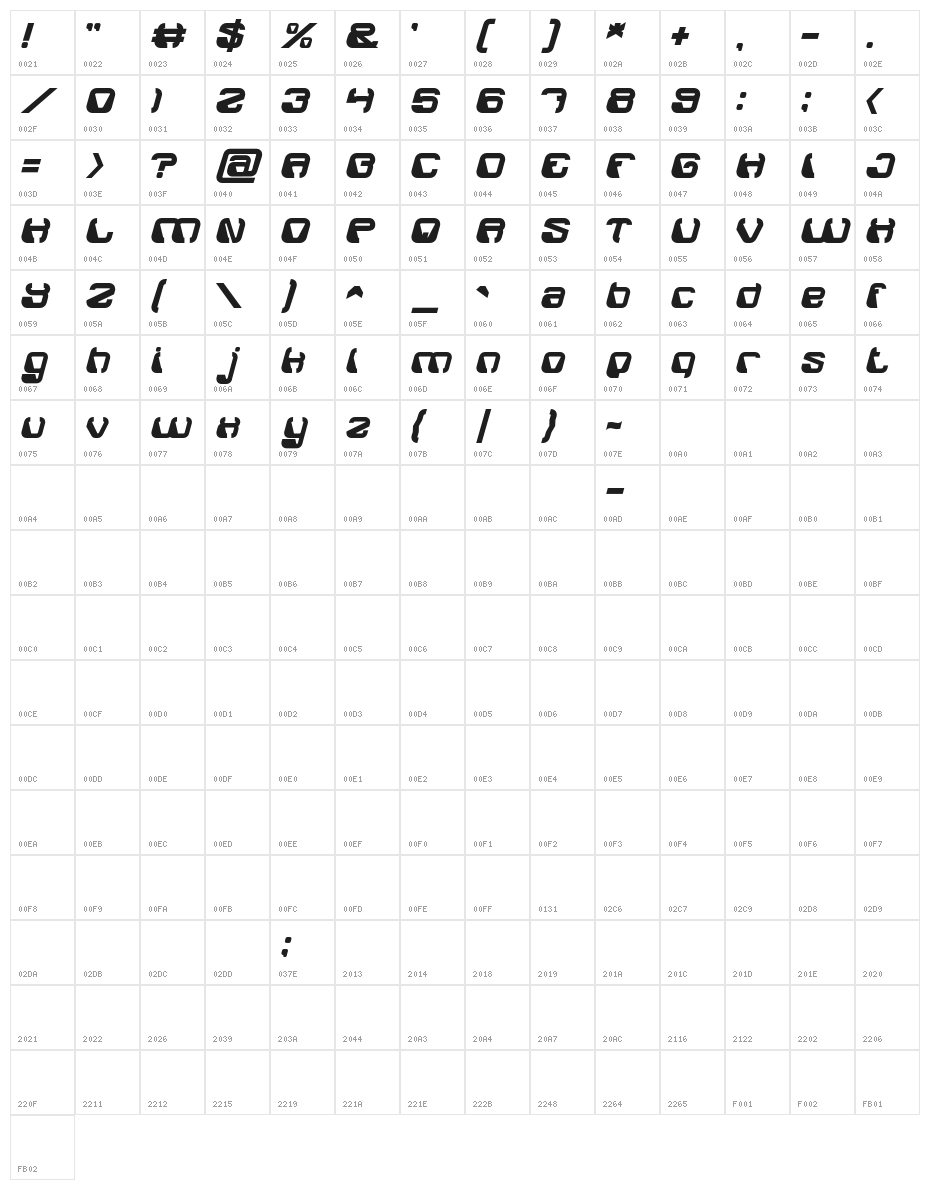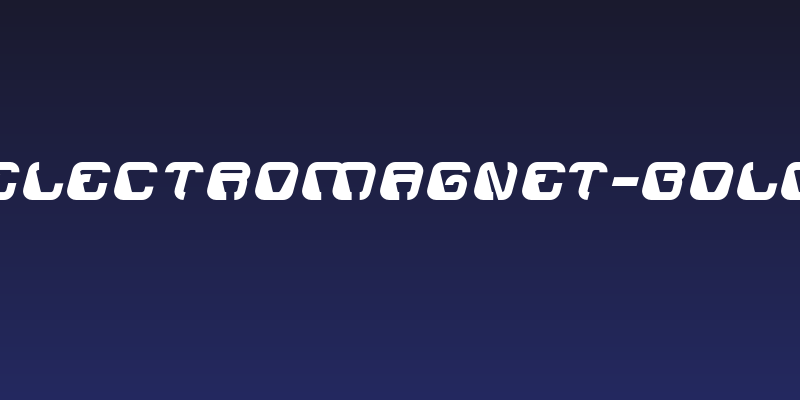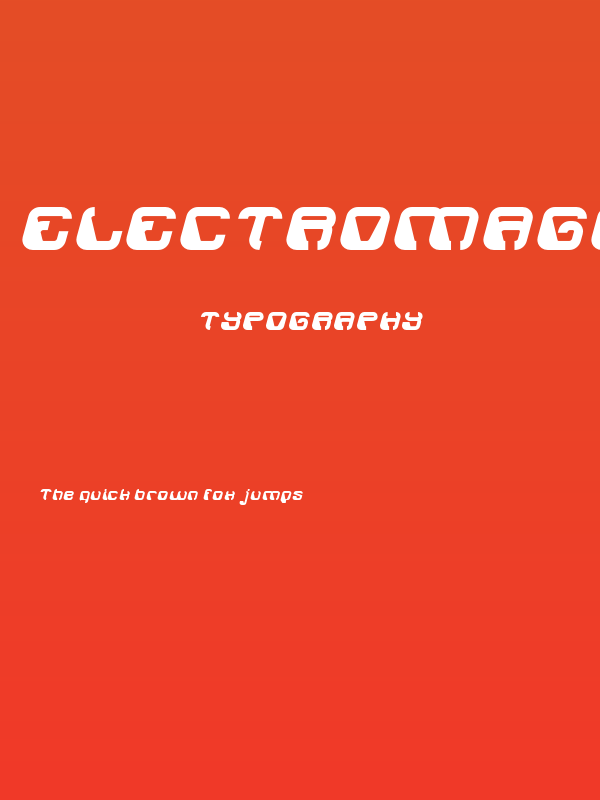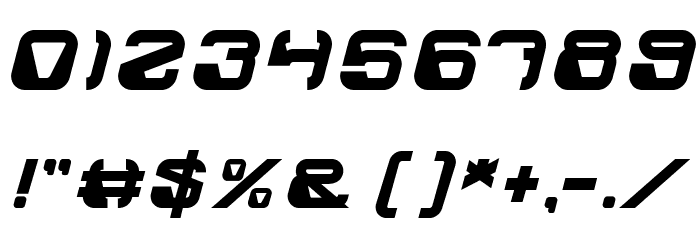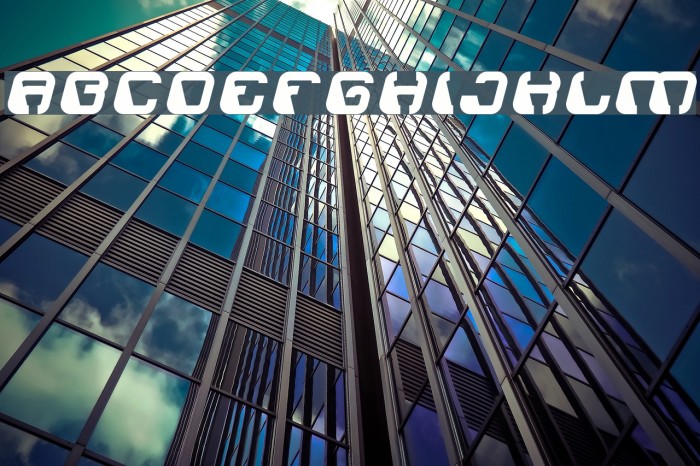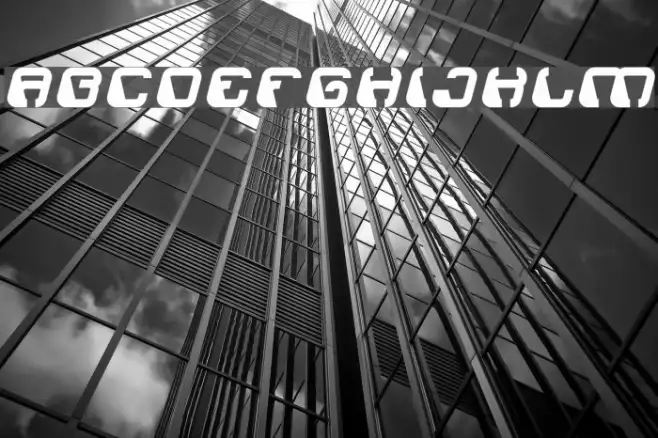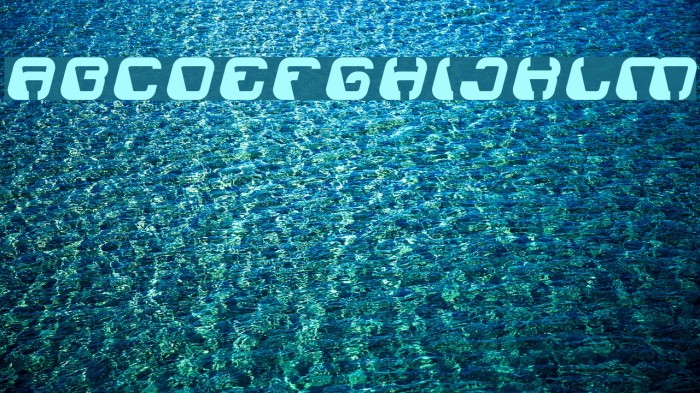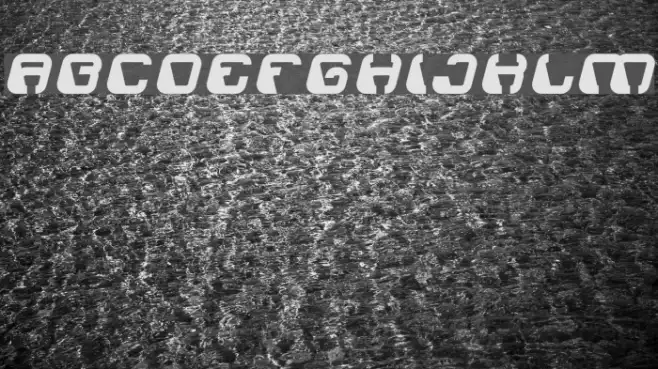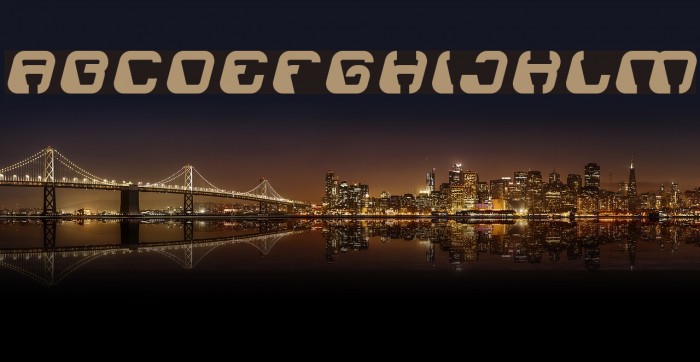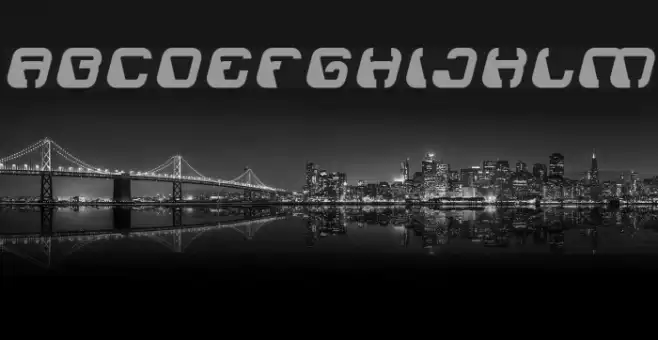
ElectroMagnet-Bold Font
ElectroMagnet-Bold Description
This font features a bold, futuristic design with a strong geometric influence. The characters are constructed with a combination of sharp angles and smooth curves, creating a dynamic and modern appearance. The uppercase and lowercase letters maintain a consistent style, with the uppercase being slightly more angular. Numbers and special characters follow the same design principles, ensuring uniformity across all glyphs. The font's bold weight and unique style make it stand out, ideal for projects that require a modern and eye-catching typeface.